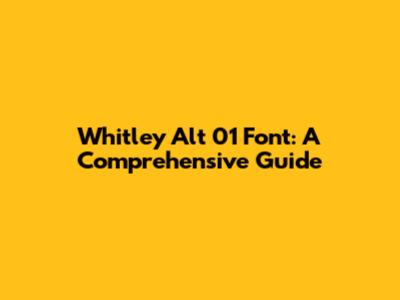
Whitley Alt 01 Font: A Comprehensive Guide
Unveiling the Whitley Alt 01 Font: What Makes It Special?
So, what's the buzz all about? Whitley Alt 01 font is a distinctive and eye-catching typeface. It's often categorized as a display font, which means it's designed to grab your attention. Think of it as the rockstar of fonts! It's not the kind you'd use for a novel (unless you're feeling really adventurous!), but it shines in headlines, logos, posters, and anything that needs a touch of flair. The font's unique character comes from its specific design, which often features bold strokes, interesting letterforms, and a modern aesthetic. It's a font that tells a story, and it's perfect if you're aiming to create designs that are visually striking.
One of the most appealing aspects of Whitley Alt 01 is its versatility. While it definitely makes a statement, it also plays well with other fonts. You can pair it with a simple, clean sans-serif font for body text to create a balanced look. The key is to experiment and see what works best for your project. The font’s overall vibe is contemporary, often leaning towards a futuristic or tech-inspired aesthetic, making it a great choice for projects related to technology, gaming, or anything that wants to feel modern. The design of each character of Whitley Alt 01 font is often carefully crafted to ensure it reads well, even at larger sizes. This is crucial for display fonts, as they need to be legible and engaging. Different versions and styles of Whitley Alt 01 might be available, offering you even more creative freedom. Whether you're looking for a bold and assertive headline or a subtle design element, this font has something to offer.
Now, let's get into the specifics of what makes it so special. This font is a display font, so it's all about making a statement. Its specific characteristics can vary based on the specific version or style. You'll often find a good balance of boldness and readability, making it perfect for headlines, logos, and other attention-grabbing elements. This font can inject personality into your designs. The font's personality can vary depending on the style. You can find versions that feel sleek and modern, others that have a more vintage or retro vibe. Whitley Alt 01 is versatile enough to adapt to a range of design styles. A critical factor is its adaptability to various design projects. It's frequently used in branding projects, web design, and graphic design for posters and social media graphics. The aesthetic qualities of Whitley Alt 01 make it a strong contender for anyone looking to add a unique touch to their projects. The beauty of this font lies in its ability to quickly transform the overall feel of a design. It gives the designer a powerful tool to shape the aesthetic message. It adds a layer of depth and visual interest that standard fonts simply can't provide. So, to sum it up: Whitley Alt 01 font is a statement font that brings a modern and distinctive flair to any design.